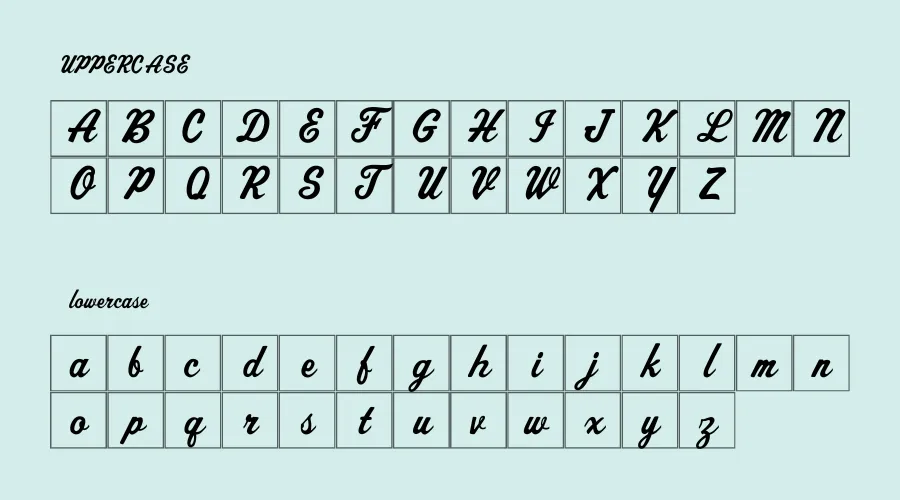
OPTIFONT created Sport Script Font it is a script style. A lovely typeface with over a hundred characters, including punctuation, numerals, icons, and uppercase letters. It supported OTF, and TTF Format. You can use this typeface to make your projects attractive with its unique style.
There are several ways in which you can utilize its advanced features for official purposes. If you want to pair this typeface with barrio rifa font, you can go with that. With it, you will get the best results for both your clients' projects and your own.
Because of its stylish glyphs, it is perfect for a wide range of designs. As well as being perfect for use in food design and naming, this font is also suitable for use in logos. The font is very popular among designers and is used for web development and design.